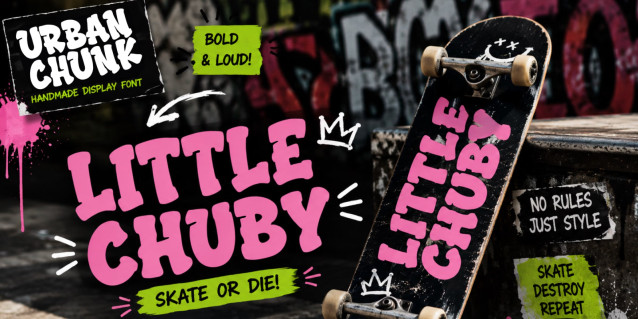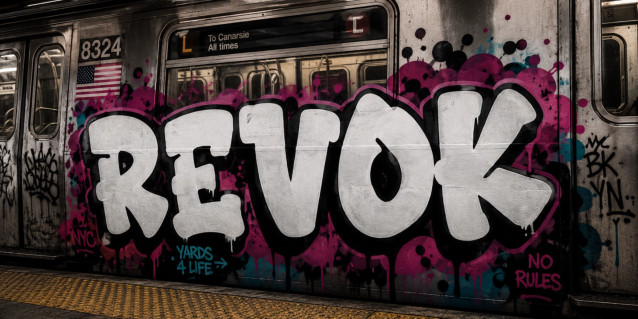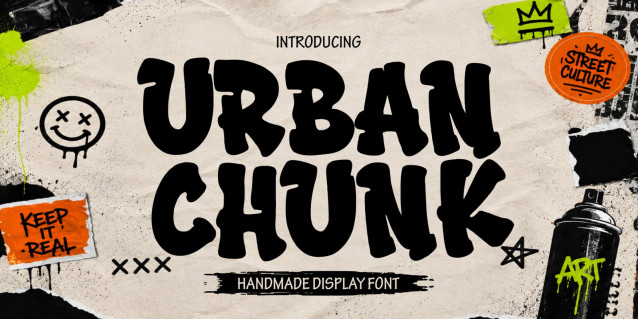
Urban Chunk Graffiti Font
Urban Chunk is a fun, chunky, and expressive graffiti font designed to bring a fresh urban personality to your typography. Inspired by playful street lettering and bold graffiti aesthetics, this cute graffiti font combines thick rounded characters with a friendly attitude that instantly grabs attention. Whether you’re designing apparel, branding, posters, social media graphics, or merchandise, Urban Chunk graffiti font helps your creative projects stand out with confidence and charm.
Unlike traditional aggressive graffiti lettering, Urban Chunk introduces a softer and more approachable style while preserving authentic urban character. This urban graffiti font offers a perfect balance between playful creativity and professional usability, making it an excellent choice for designers who want something unique, memorable, and highly versatile.